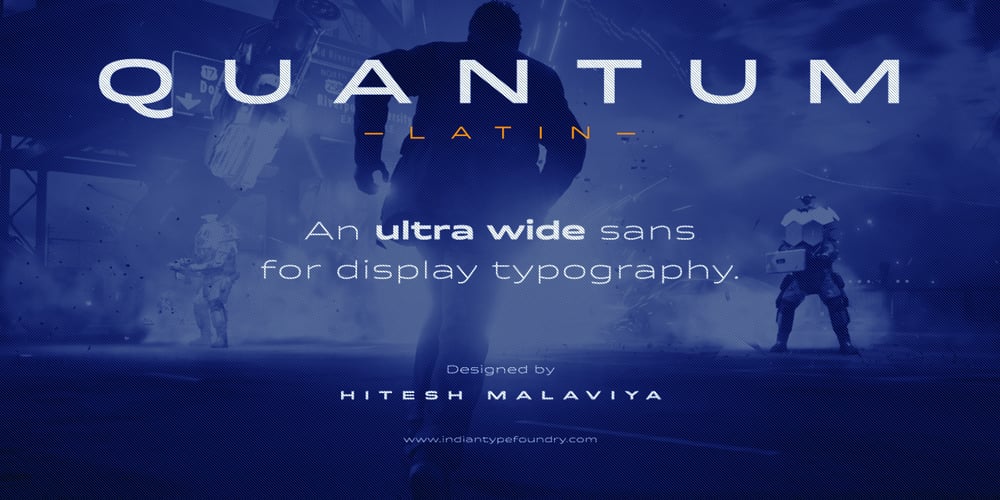
Quantum Latin Font Family was designed by Hitesh Malaviya and published by Indian Type Foundry. Quantum Latin contains 5 styles and family package options. A very friendly-looking sans, Quantum Latin is Hitesh Malaviya’s first published typeface for the Latin-script. Its five styles are very, very wide, but the letterforms do not look too technical. Stroke endings are vertical, like in a humanist sans. Don’t overlook the tails on ‘K,’ ‘Q,’ ‘R,’ and ‘k!’